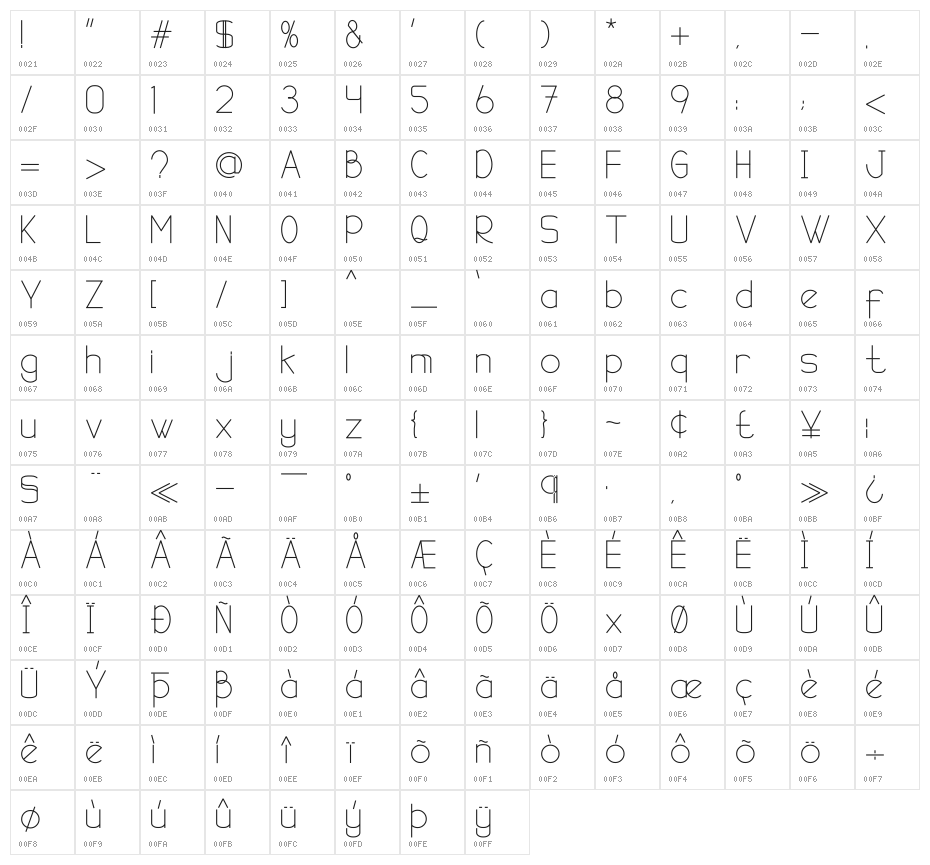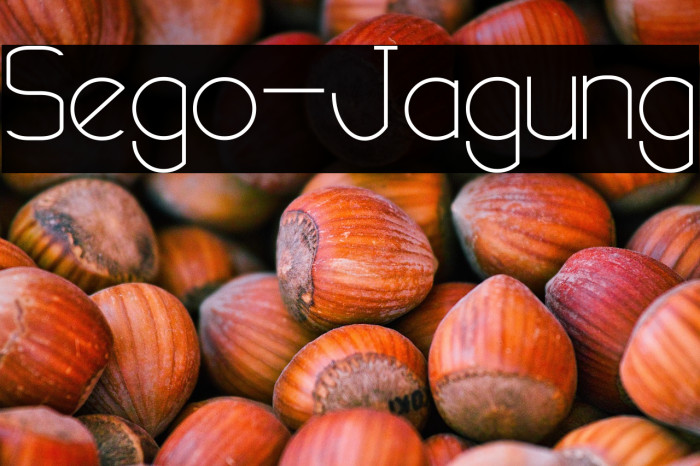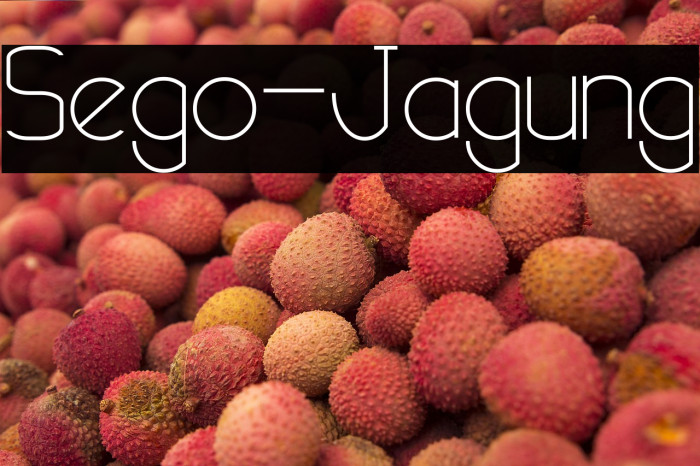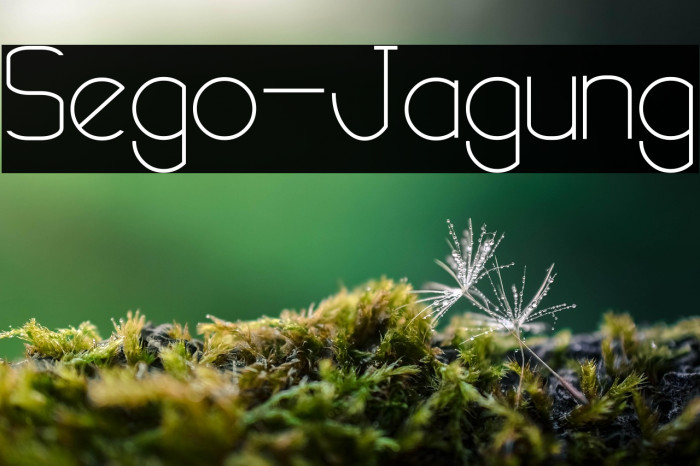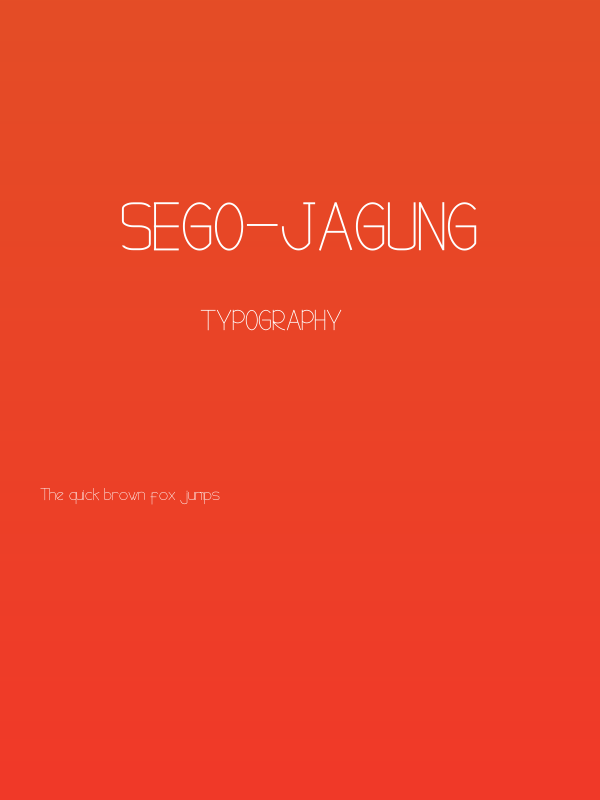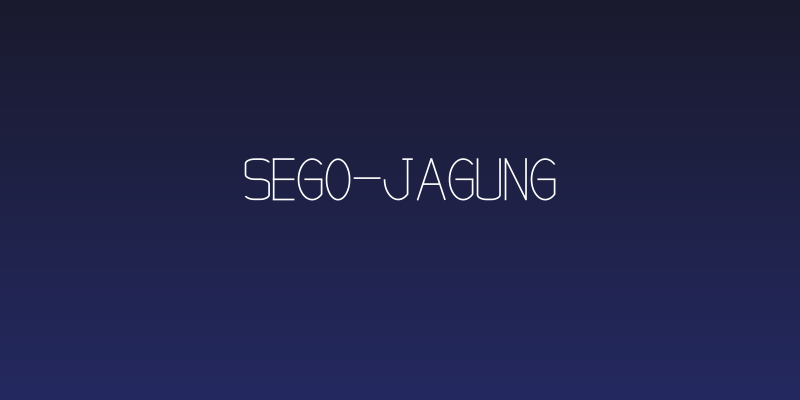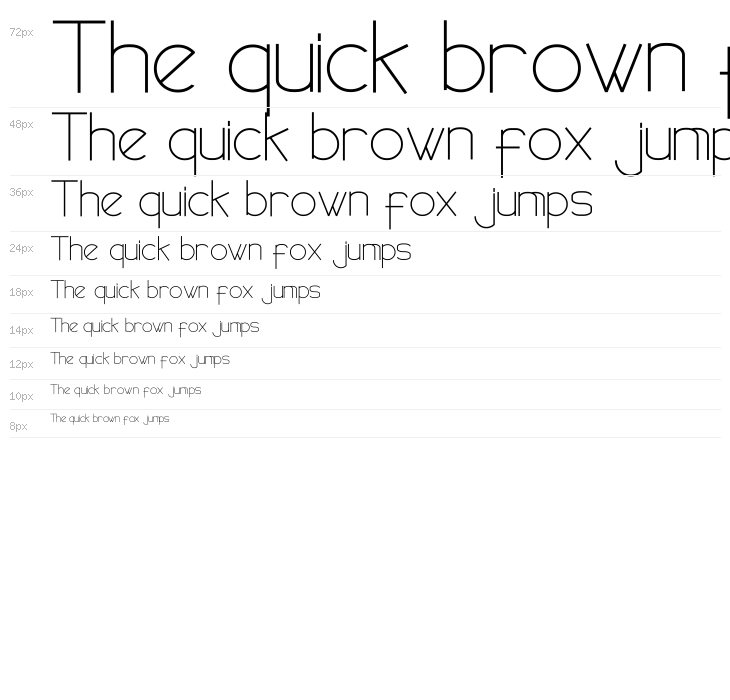
Sego-Jagung Font
Sego-Jagung Description
This font features a modern, geometric design with clean lines and a minimalist aesthetic. The characters are constructed with a consistent stroke width, giving it a uniform appearance. The uppercase letters are tall and narrow, while the lowercase letters maintain a similar height, creating a cohesive look. The numerals and special characters follow the same design principles, ensuring readability and style. The overall impression is sleek and contemporary, making it suitable for a variety of design applications.
| Proposed Projects | Ideal for branding, logos, modern web design, and editorial layouts. |